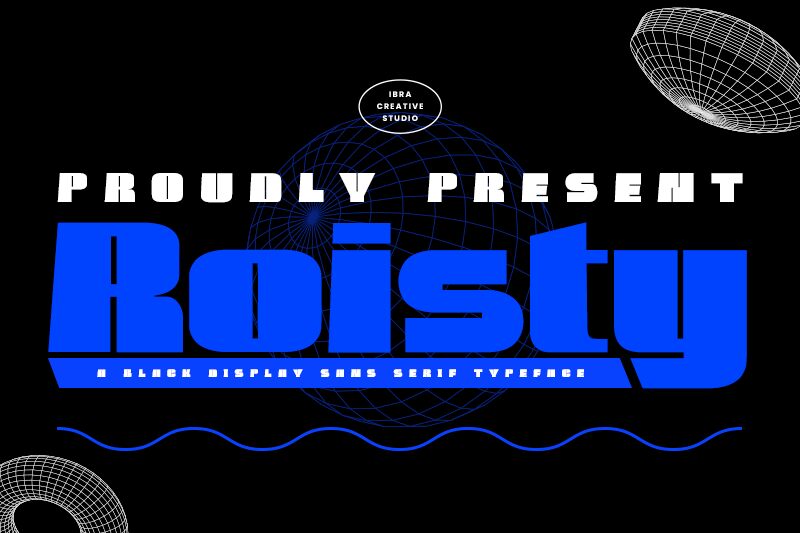
Roisty Personal Use Regular
Roisty font by Ibra Creative Studio is a bold expanded sans serif that instantly exudes confidence. Inspired by a retro influence, this font has an unmistakably industrial feel with geometric shapes and distinct blocky aesthetic. Its futuristic vibe and monospace appearance make it the perfect choice for daring designs in digital as well as in traditional media.
Posters, magazines, newspapers, book covers, pamphlets; Roisty shines equally in all those printed applications. And when used on the web, it's perfect for blog titles and logo design. The free font is also a good pick for advertisement campaigns (both text and display vocabulary) as well as packaging labels.